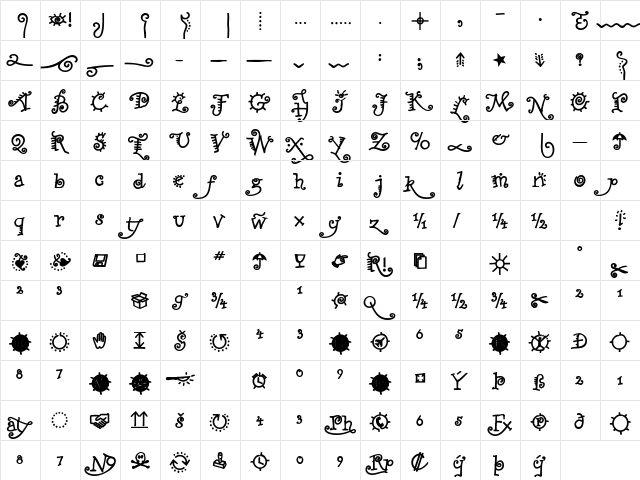
ZapitoLightSSK Bold
Design Context for ZapitoLightSSK Typeface
ZapitoLightSSK is a composed and adaptable typeface that performs quietly and consistently across a wide range of design contexts. Its bold stroke weight gives it real presence on the page.